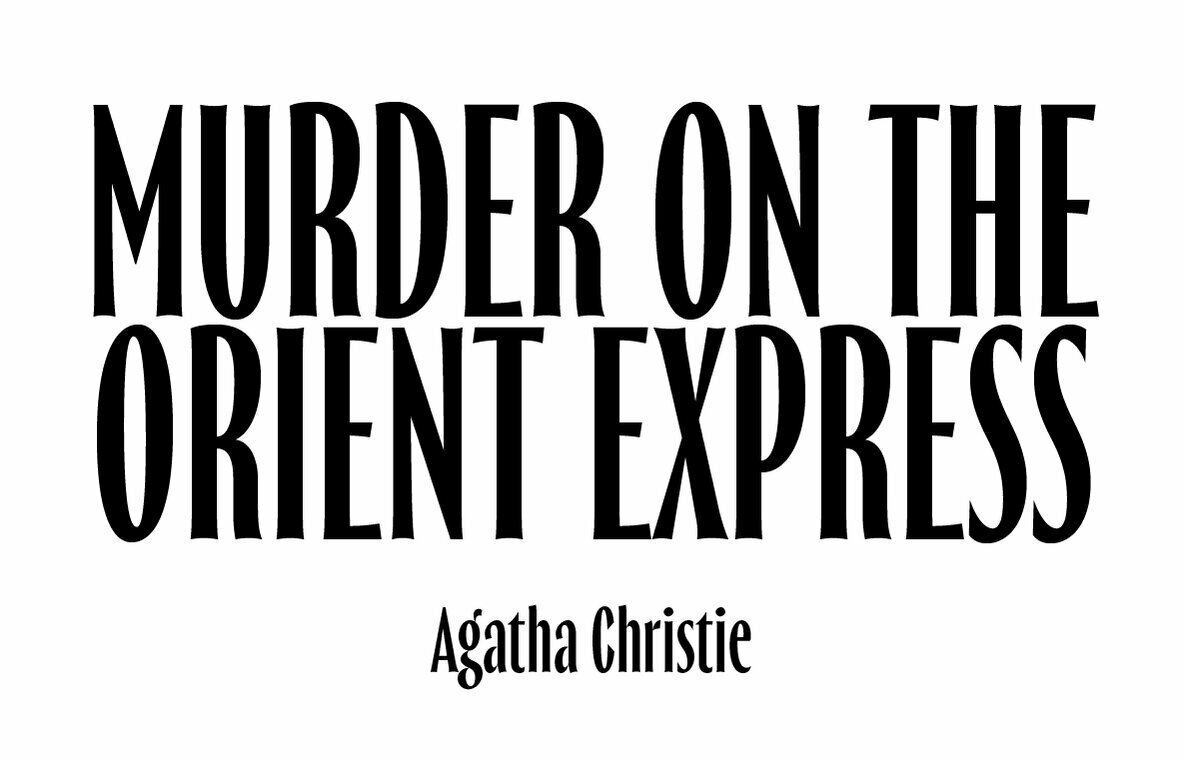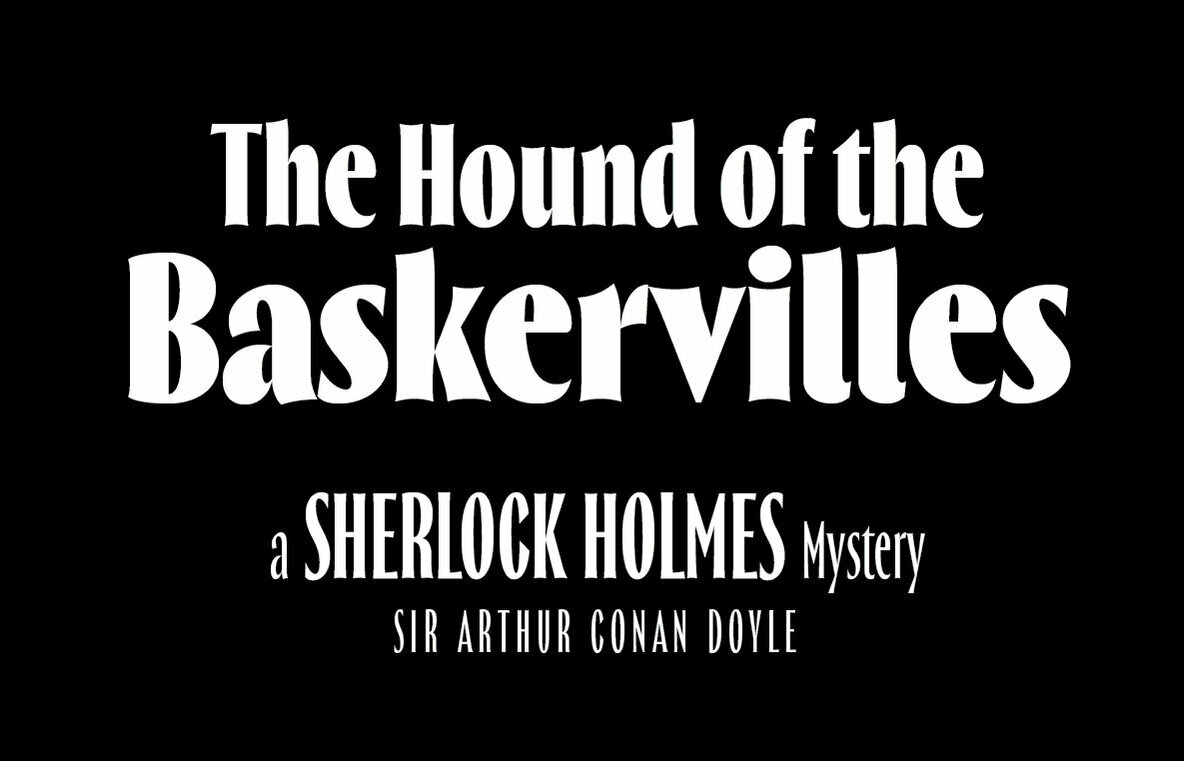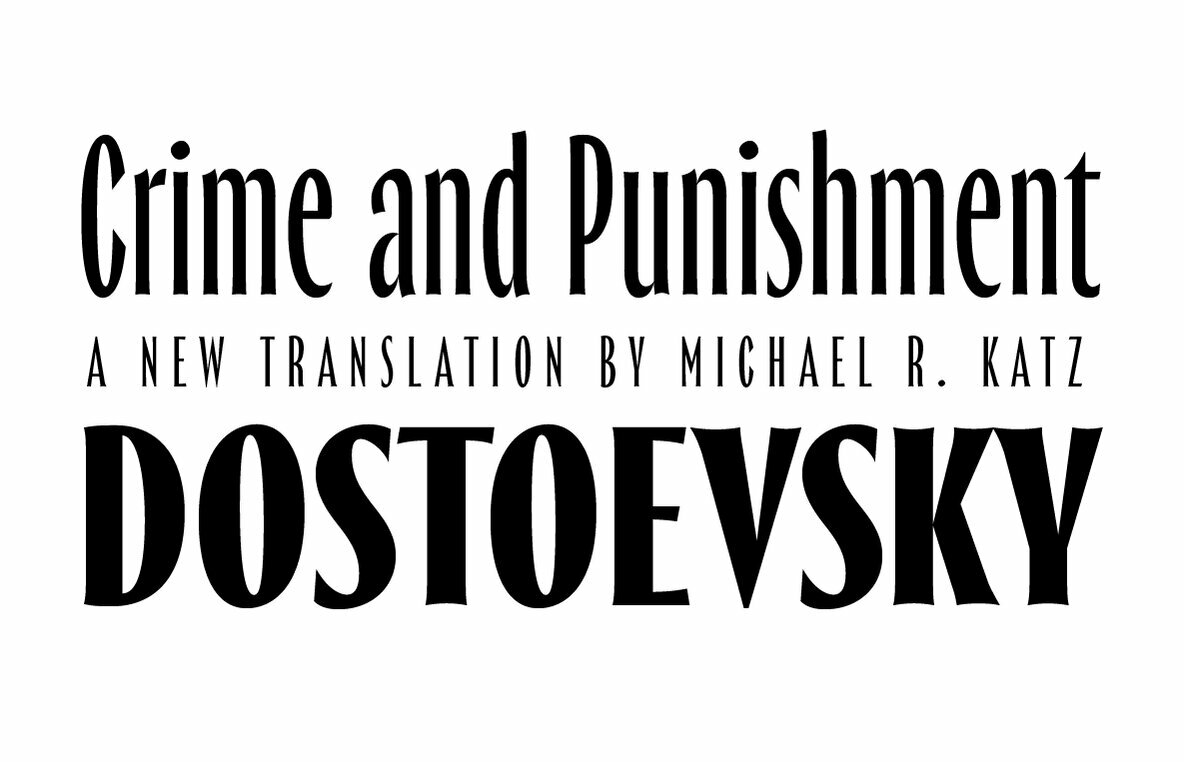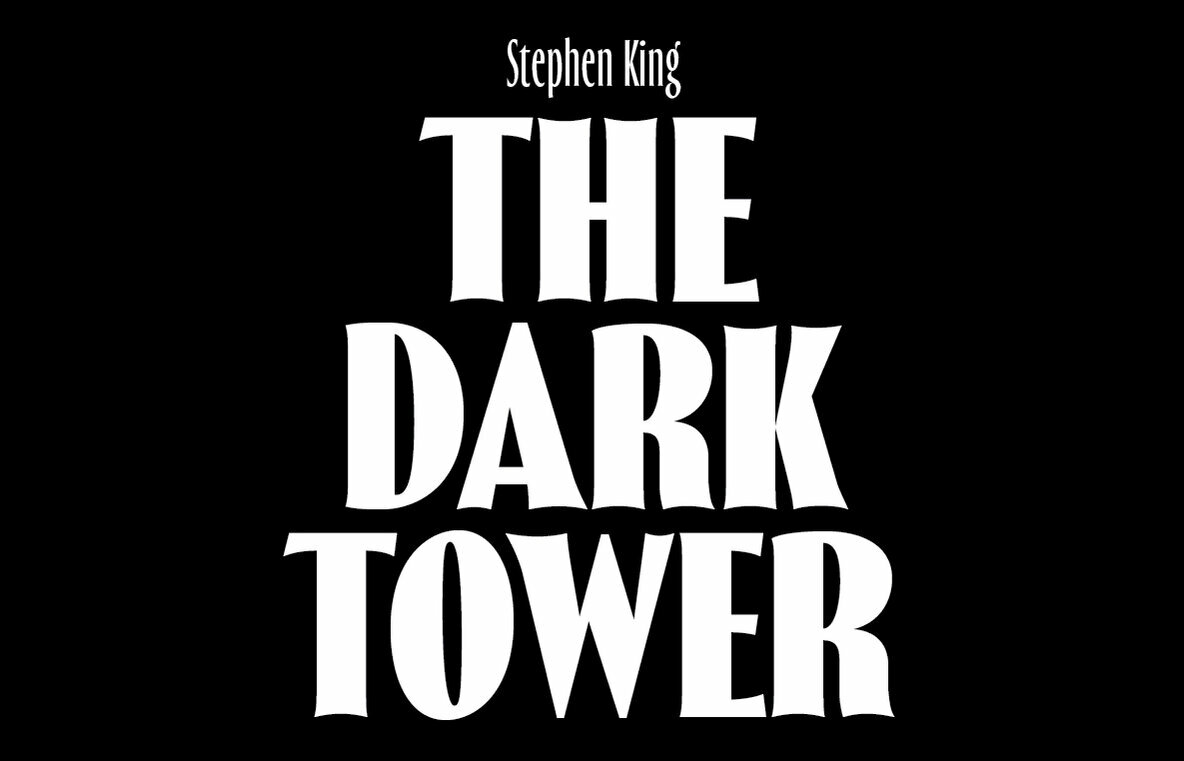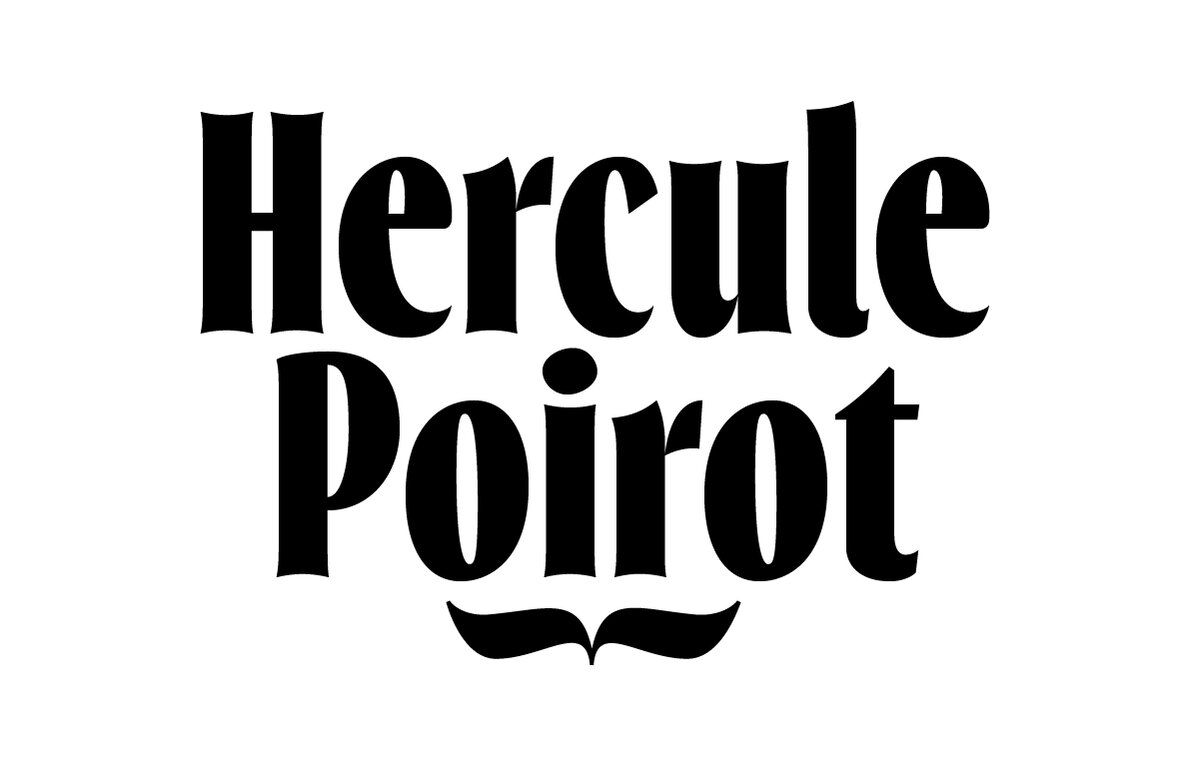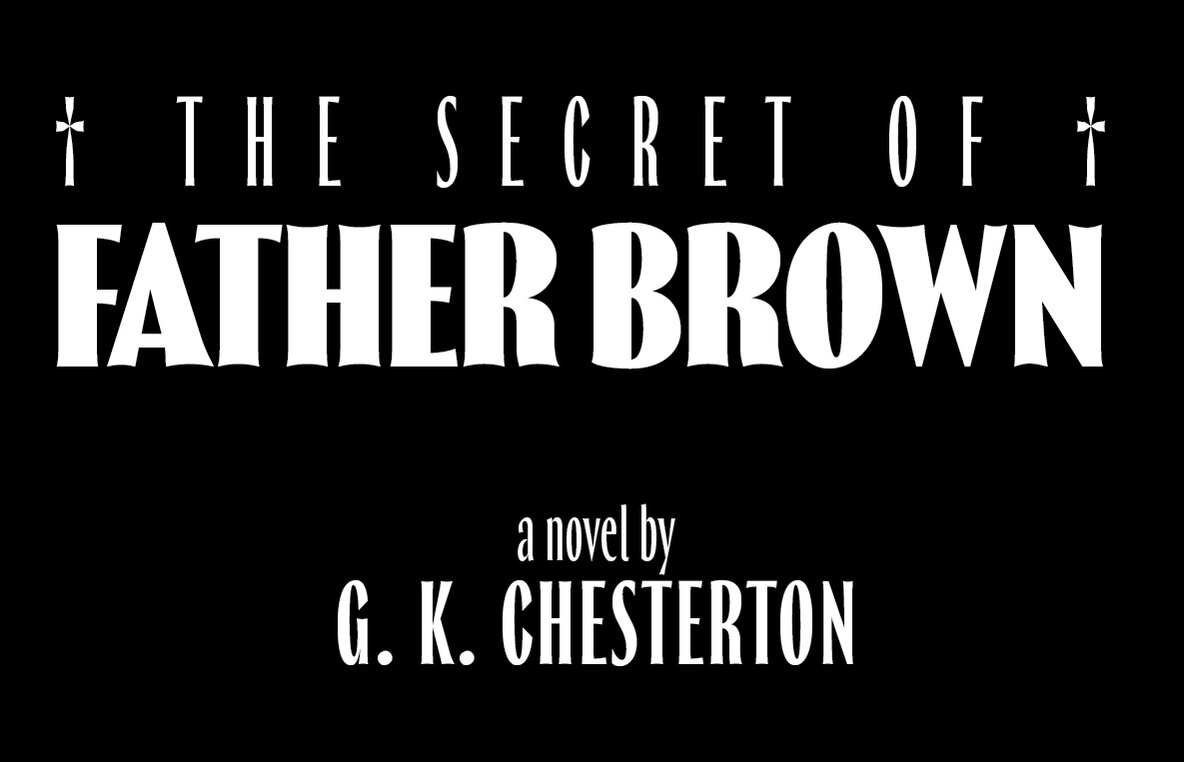
Thrillers Font
Thrillers is a typeface that evokes the visual landscape of Crime Novel Titles. This high contrast super condensed semi-serif design comprises 6 weights that provide you with a ton of options for your Headlines, Titles and Branding. Because of its minimal white space it is very punchy and its unusual texture captures our attention.